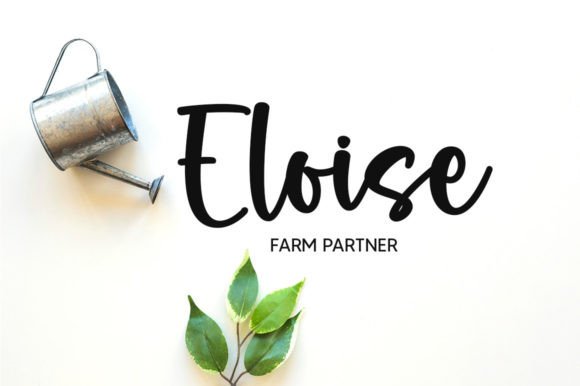
Country Market is a delicate, elegant, and flowing handwritten font. Its beautiful and well-balanced characters make it perfect for wedding invitations, thank you cards, quotes, greeting cards, logos, business cards, and every other design which needs a handwritten touch.
Country Market Font